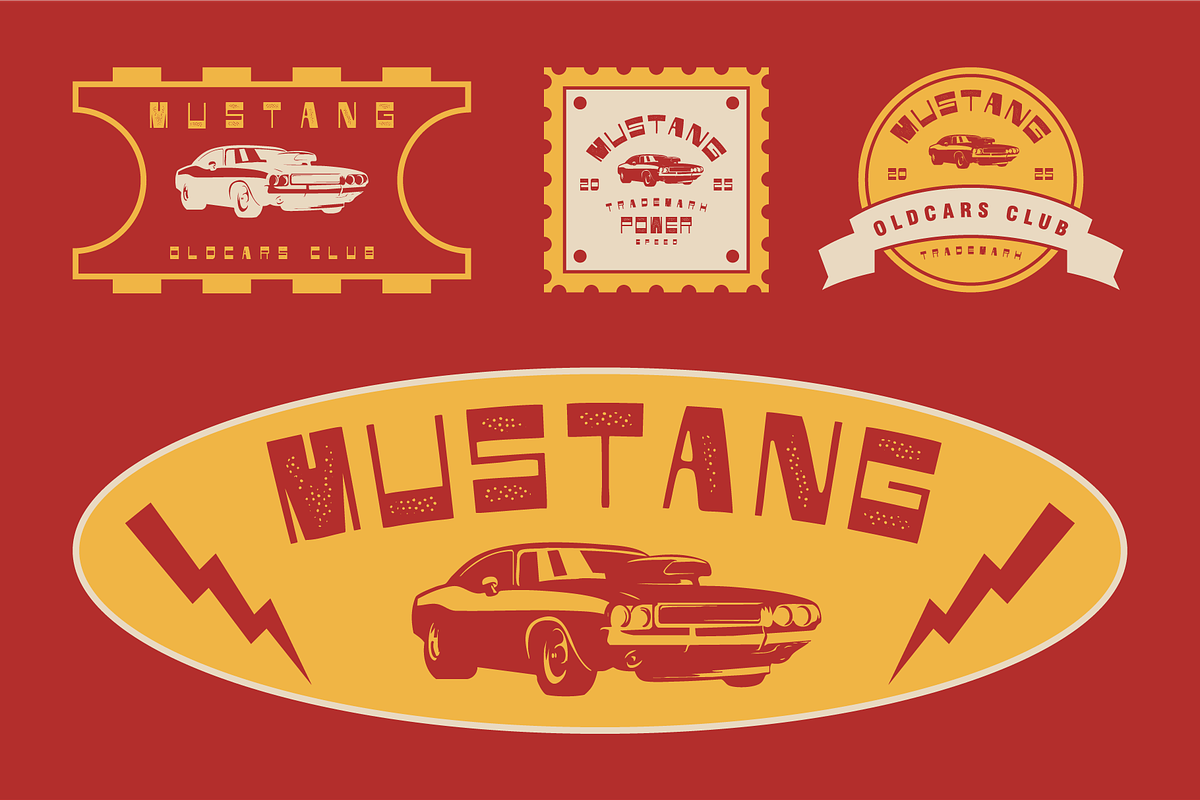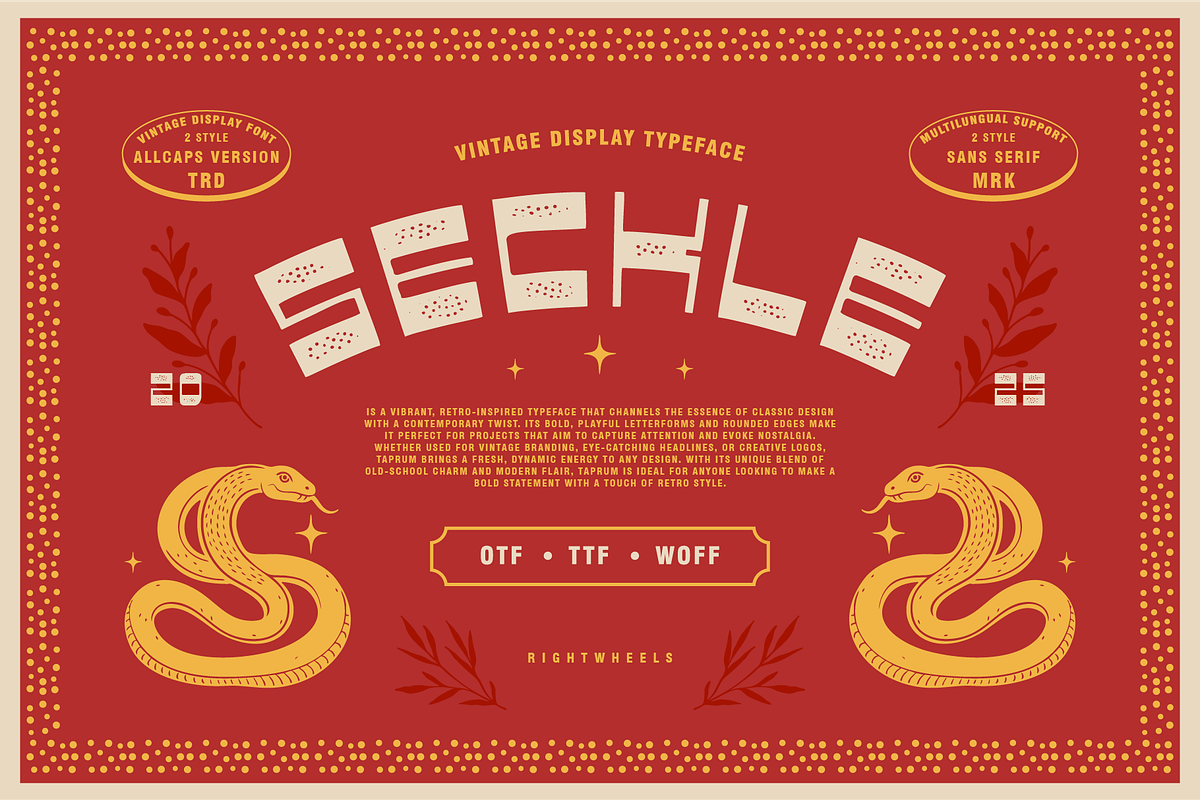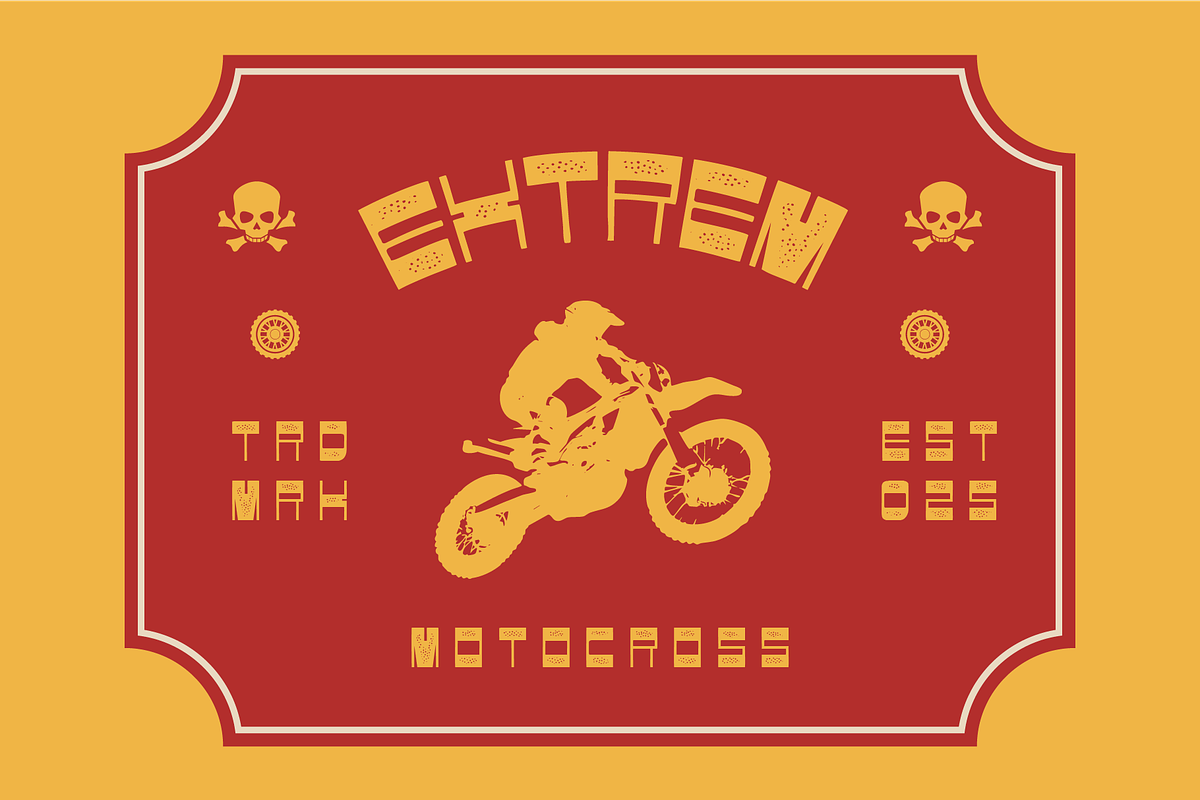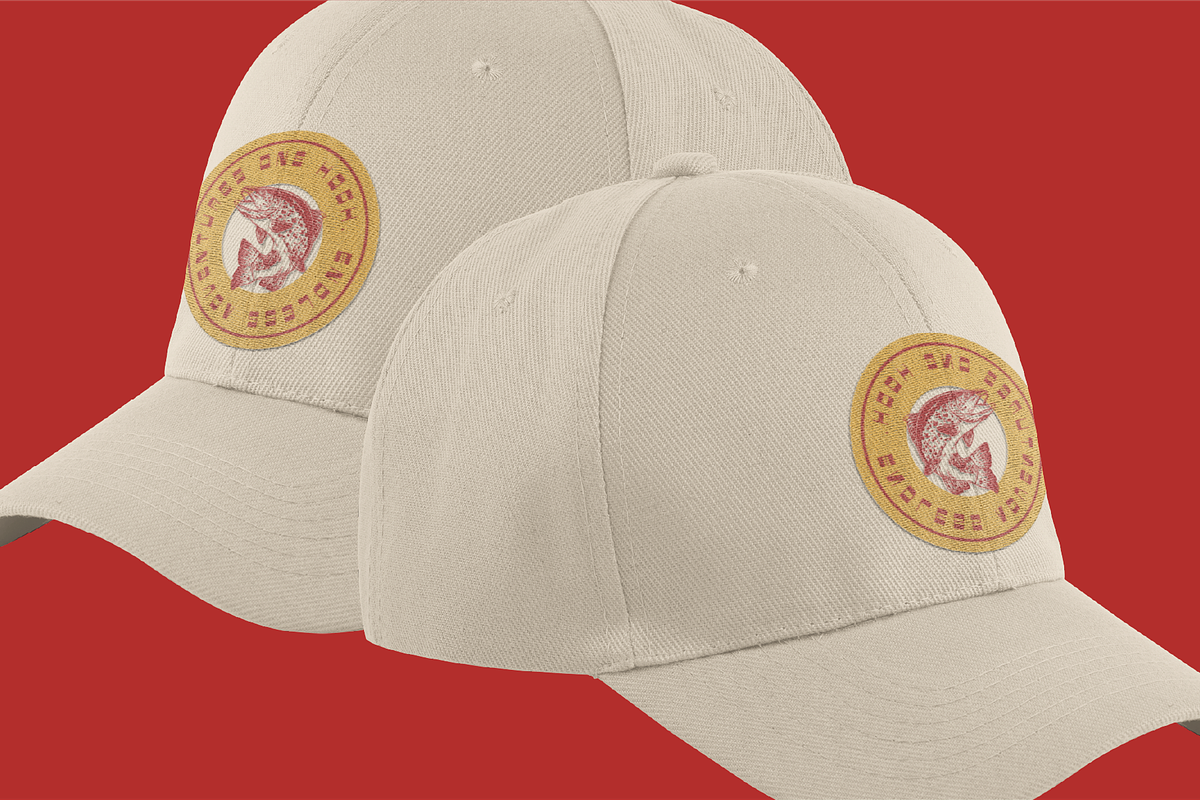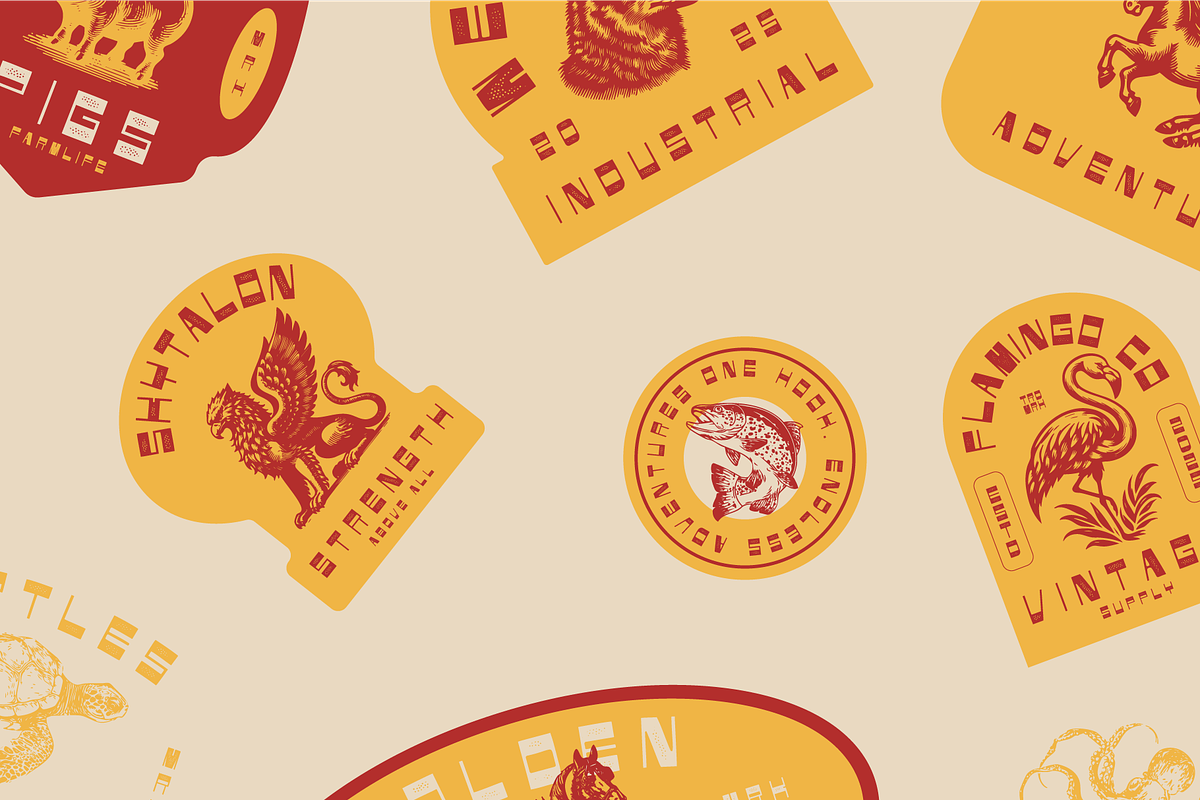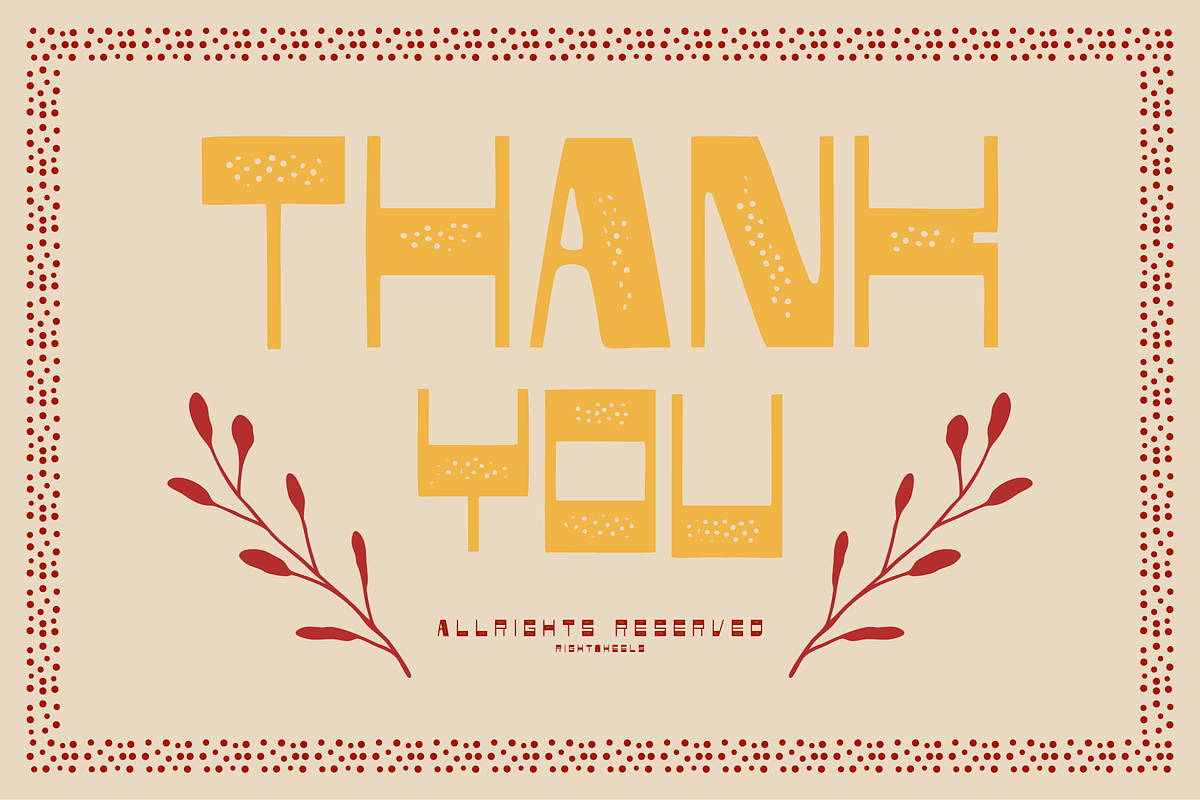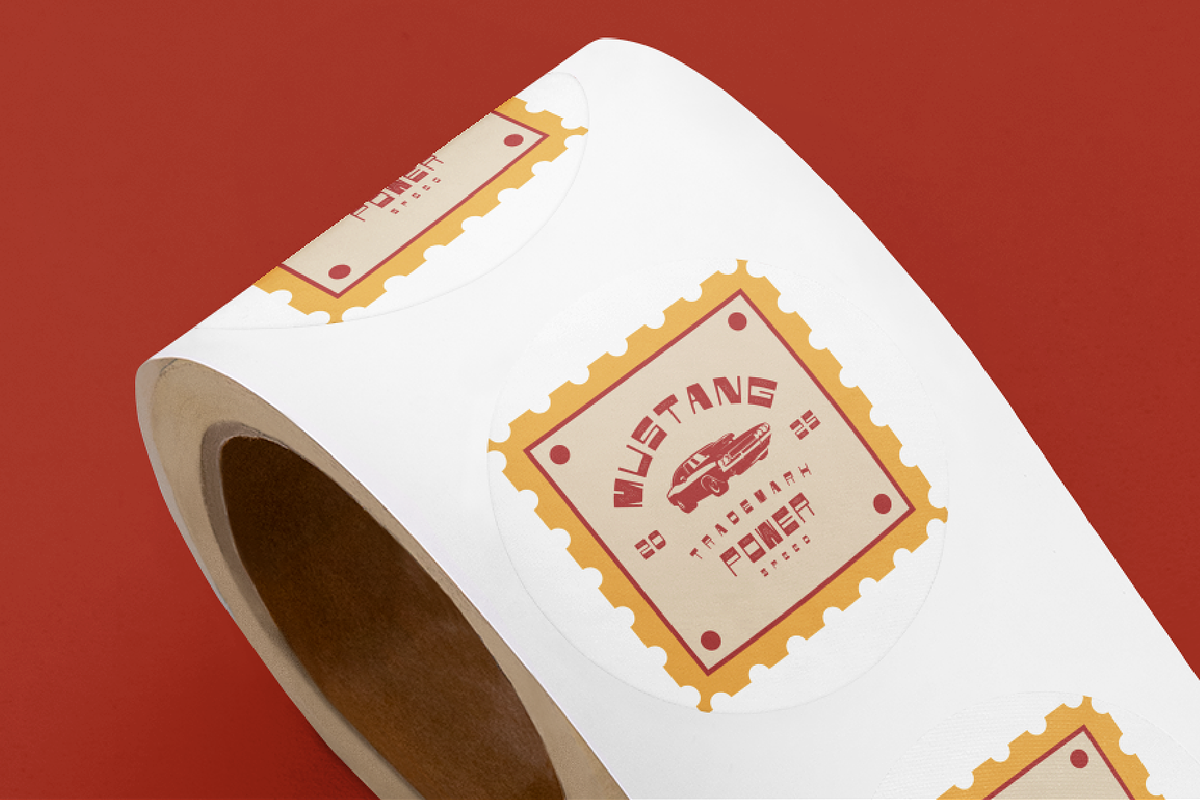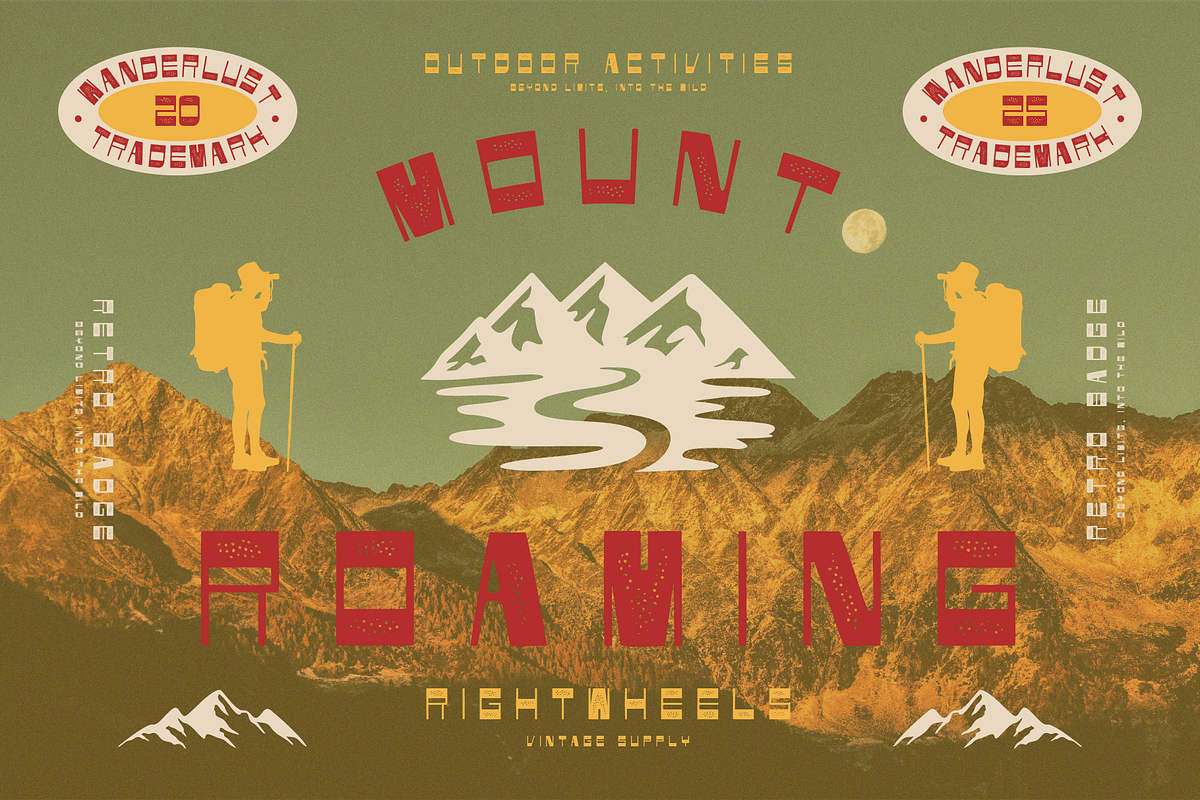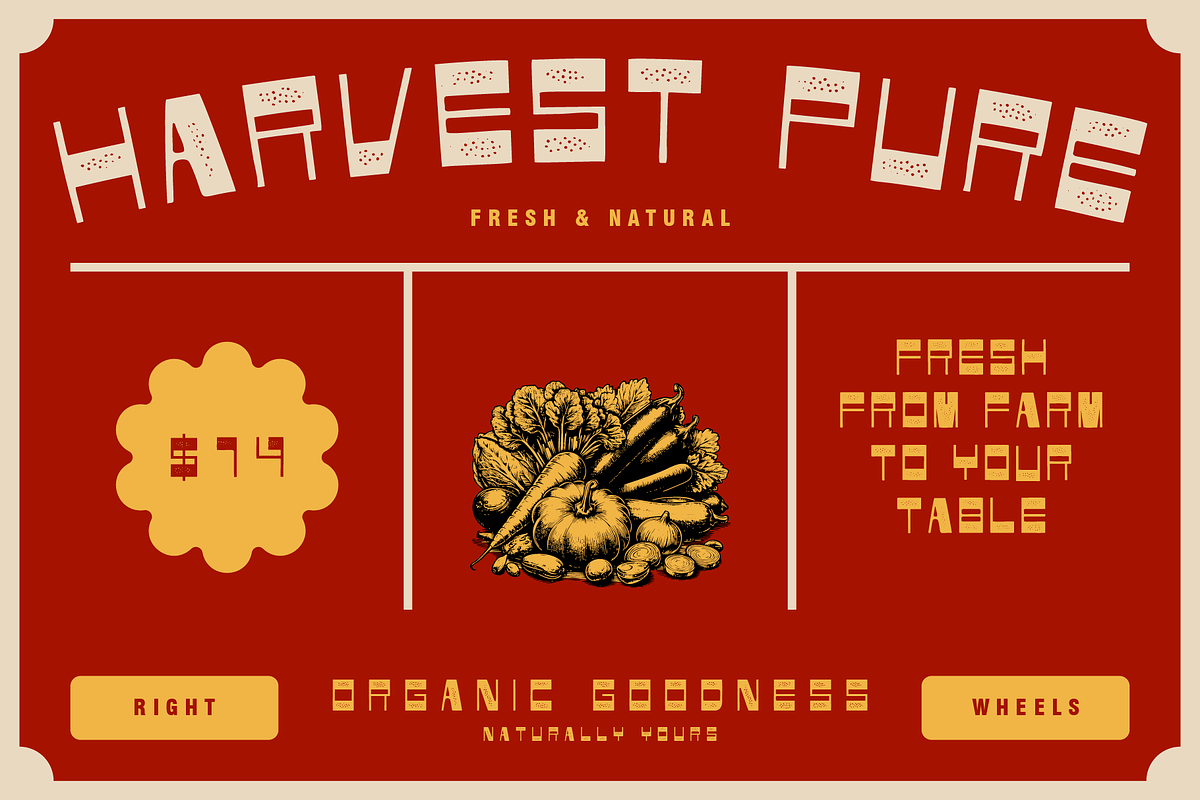
SECKLE - Vintage Display Font
Seckle is a bold retro-inspired typeface that blends vintage charm with modern versatility. Its all-caps design delivers a strong, nostalgic character reminiscent of classic signage, posters, and old-school print styles. With its distinctive letterforms and timeless feel, Seckle is perfect for branding, headlines, and creative projects that want to capture a retro spirit while staying fresh and stylish today.